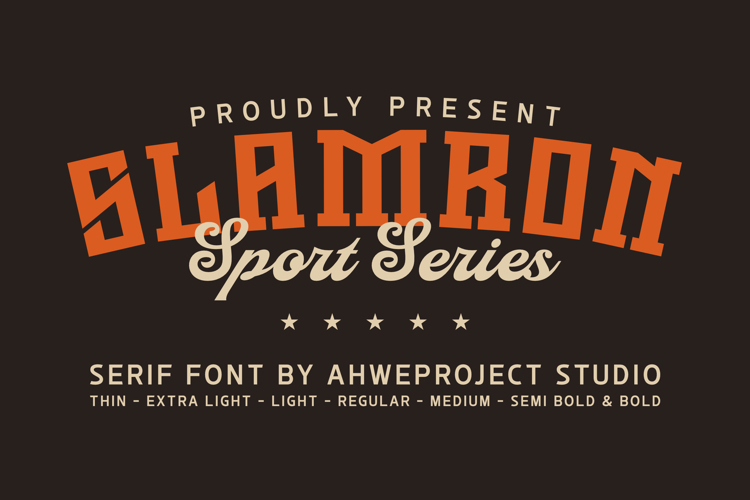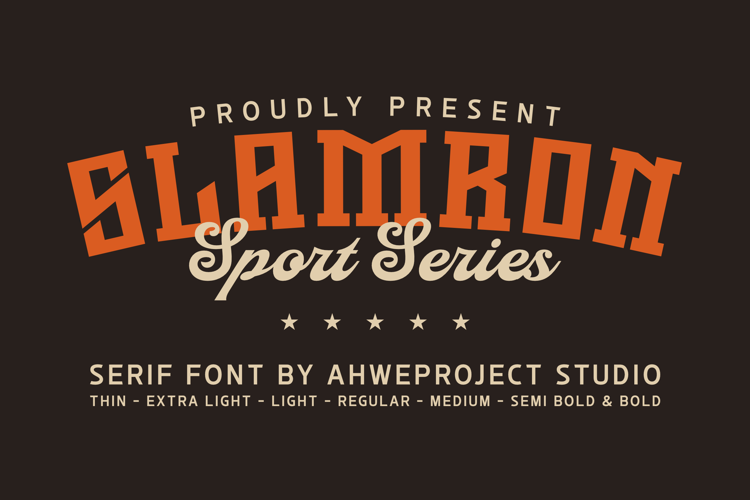
Slamron is a bold and powerful serif font inspired by the classic spirit of sports typography. Designed with strong letterforms, sharp edges, and confident proportions, Slamron instantly brings a sense of energy, strength, and victory to any design. This font captures the timeless look often seen in stadium graphics, varsity lettering, and athletic branding, making it perfect for projects that need a competitive and dynamic feel.
The standout characteristic of Slamron lies in its solid structure and athletic personality. Each letter is crafted to feel sturdy, balanced, and highly readable, even at large display sizes. Its bold presence makes it ideal for headlines, team logos, merchandise, posters, apparel designs, and sports-themed branding. Whether you're designing for baseball, basketball, football, or esports visuals, Slamron helps your typography command attention.
Slamron is also built with versatility in mind. With multiple weights ranging from Thin to Bold, this font allows designers to create strong typographic hierarchies while maintaining a consistent visual identity. The lighter weights work beautifully for supporting text or modern layouts, while the heavier weights deliver maximum impact for titles and logos.
Beyond sports design, Slamron also fits perfectly into vintage, retro, collegiate, and bold branding projects. Its classic yet modern style makes it suitable for packaging, posters, editorial layouts, and bold marketing visuals that demand a confident typographic voice.
If you’re looking for a font that combines athletic energy, classic serif strength, and professional versatility, Slamron is a powerful choice that will elevate your designs and make them stand out instantly.